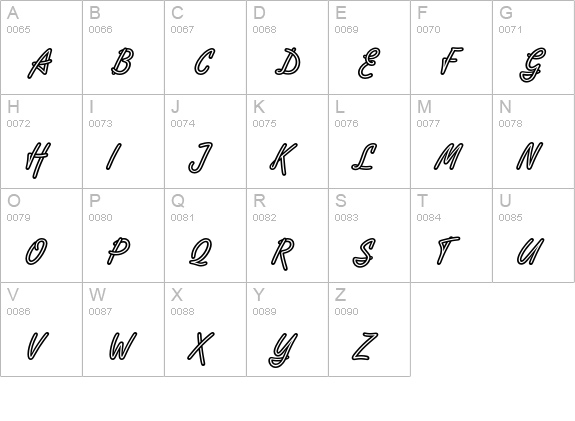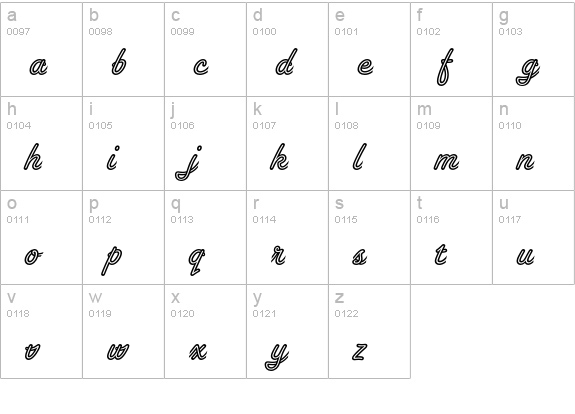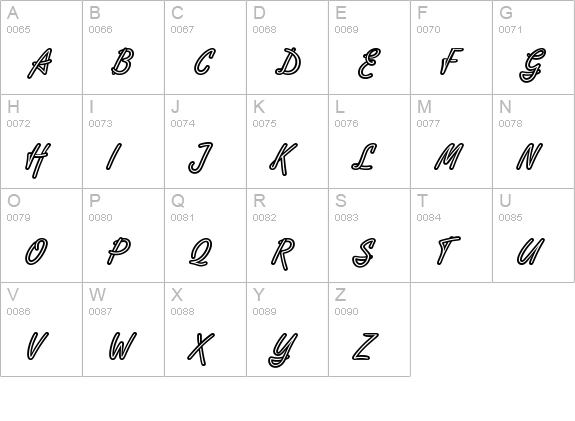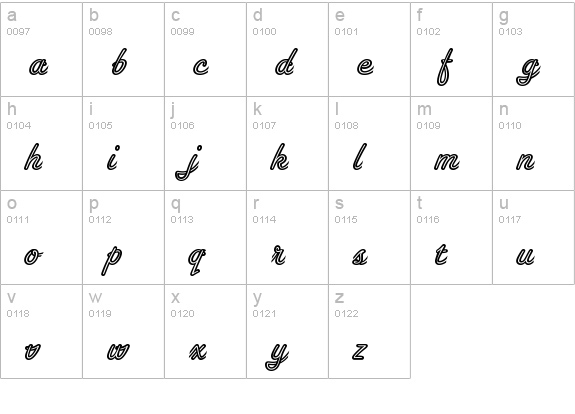
Tropica Script Std is a stunning and elegant font that will add a touch of sophistication to any design project. With its flowing and graceful letterforms, this script font exudes a sense of beauty and charm. The fine details and intricate strokes of Tropica Script Std make it perfect for wedding invitations, branding materials, logos, and more. Its versatility allows it to be used in both formal and casual settings, giving your designs a unique and memorable look. What makes Tropica Script Std even more appealing is that it is freely available to download at FontsMarket.com. This means that you can easily access this exceptional font without having to spend a dime. Whether you are a professional designer or a hobbyist, Tropica Script Std offers you the opportunity to enhance your creative projects with a high-quality font, all for free. So why wait? Download Tropica Script Std from FontsMarket.com today and elevate your designs with this beautiful and freely accessible font.